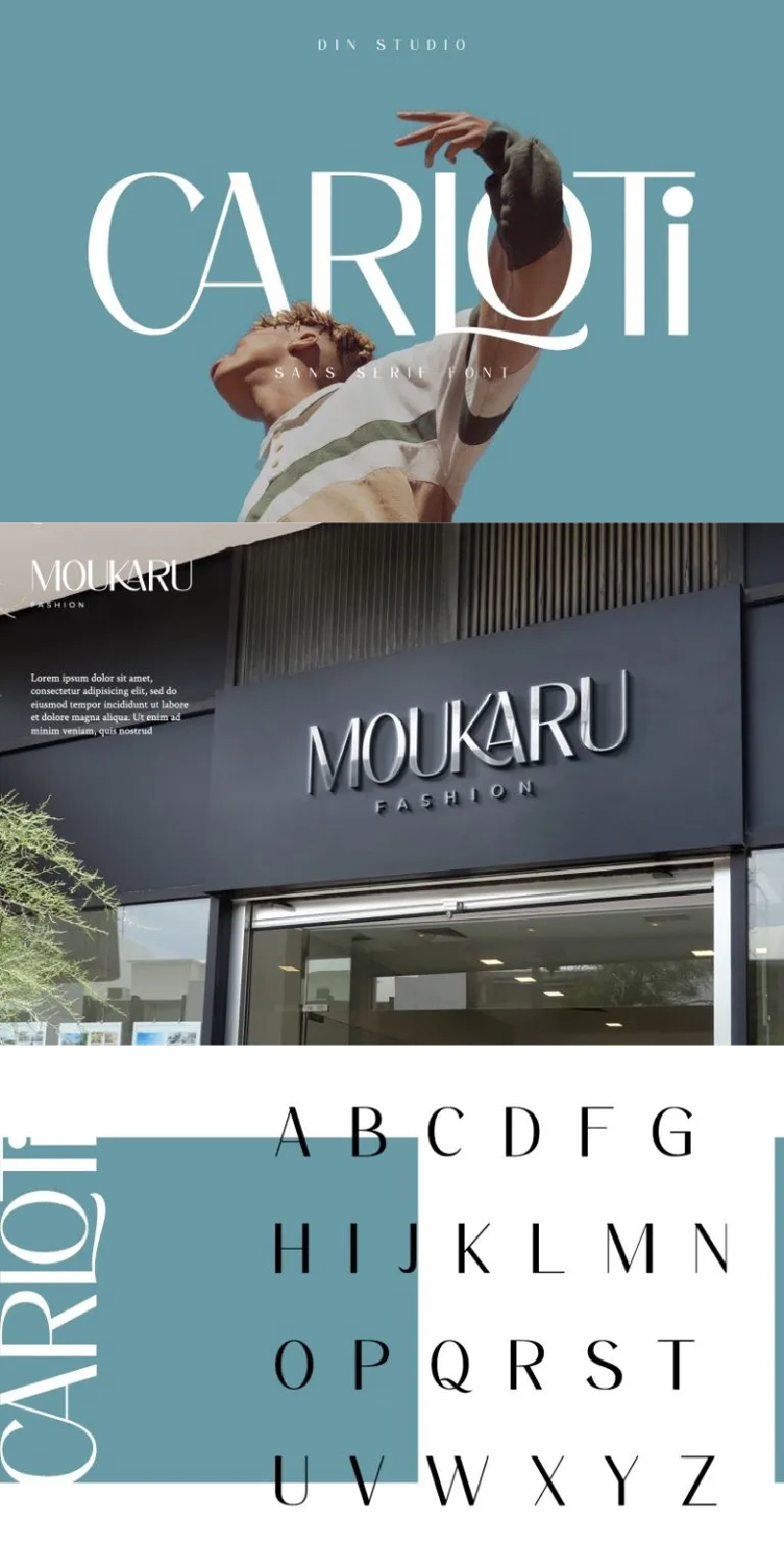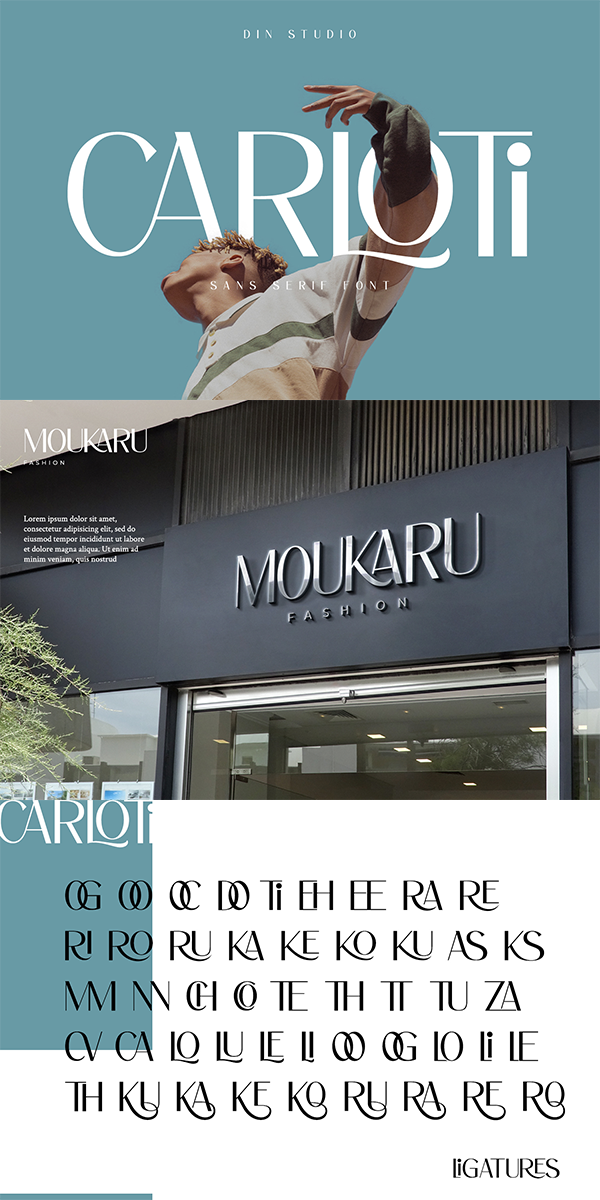
CARLOTI Font
Carloti is a gorgeous uppercase sans serif font that will whisk you away to a place of style! We are hoping that through this elegance and passion edged font, you can maximize your designs, reign in sales or make lasting impressions. The ideal font for social media banners; posts, and ads, printed quotes, t-shirt designs, packaging, or even as a modern text overlay to any background image.
-Standard Ligatures